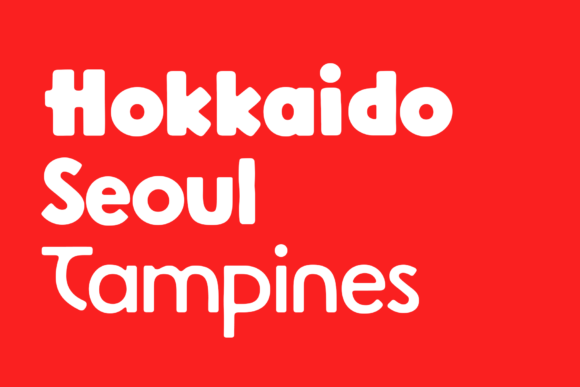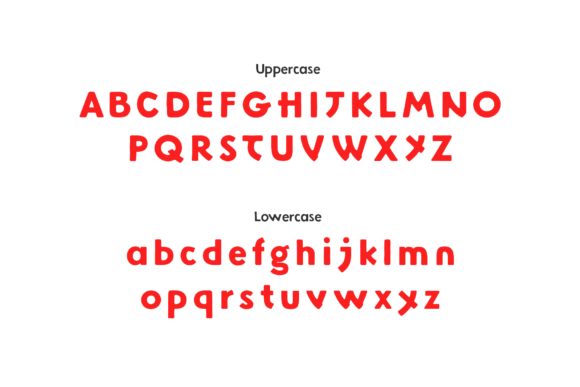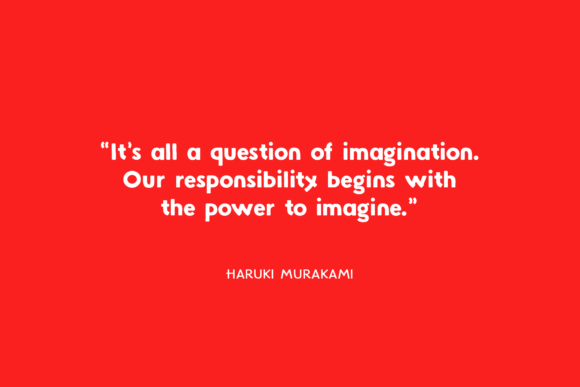
Hoki Font
Hoki is a contemporary hand-drawn sans-serif font meticulously crafted to embody the essence of Asian typography with a modern twist. Clean, playful, and organic, Hoki is inspired by the artistic traditions of East Asia, seamlessly blending traditional aesthetics with a fresh and dynamic design.